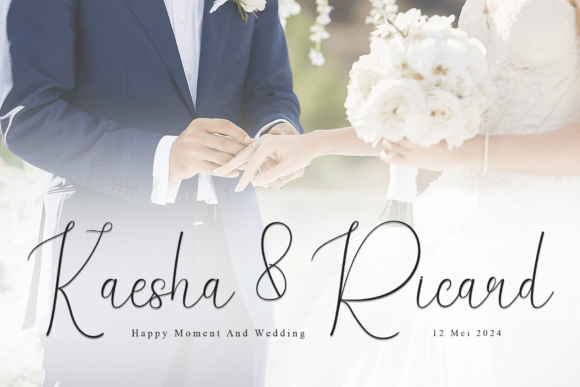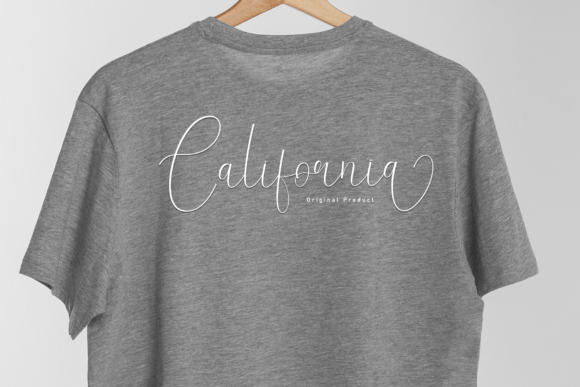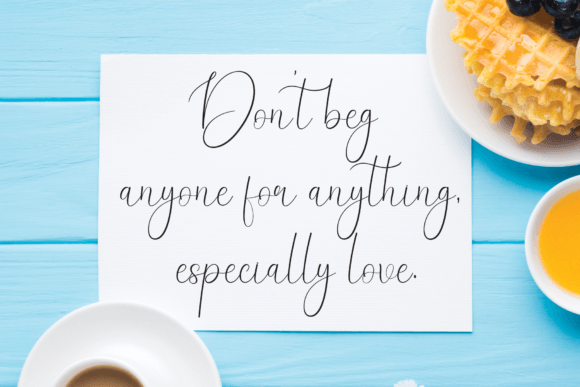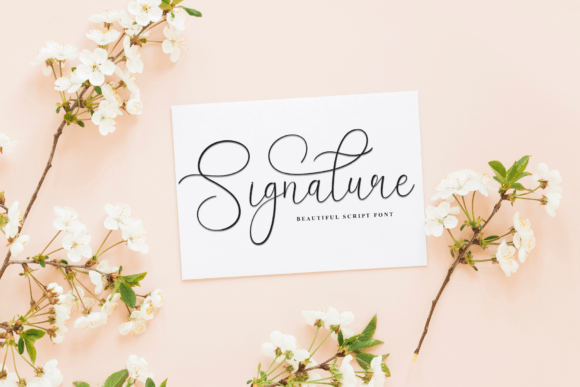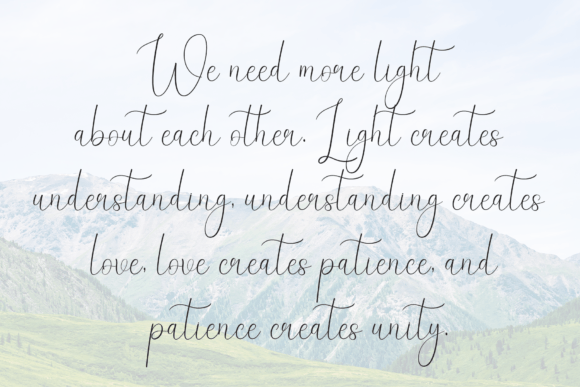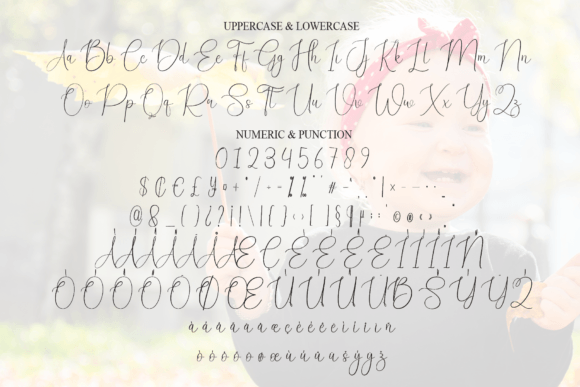
Baby Canada Font: A Charming Handwritten Typeface for Heartfelt Designs
In the world of typography, few fonts capture the essence of warmth and personality as beautifully as the Baby Canada font. This charming handwritten typeface has gained popularity among designers and crafters for its unique blend of elegance and whimsy, making it an ideal choice for a variety of creative projects. In this article, we’ll explore the features, uses, and benefits of the Baby Canada font, and why it has become a go-to choice for those looking to add a personal touch to their designs.
The Characteristics of Baby Canada Font
Baby Canada is a handwritten font that exudes a sense of warmth and friendliness. Its smooth, flowing strokes and whimsical character make it stand out from more traditional typefaces. The font features:
- Smooth and flowing strokes: The font’s smooth strokes give it a fluid and natural look, making it perfect for creating elegant and sophisticated designs.
- Whimsical character: The font’s whimsical character adds a touch of playfulness and personality to any design, making it ideal for creative projects.
- Elegant and personal touch: The font’s elegant and personal touch makes it perfect for heartfelt invitations, cozy branding, and other designs that require a personal touch.
Uses of Baby Canada Font
The Baby Canada font is incredibly versatile and can be used in a variety of creative projects, including:
- Heartfelt invitations: The font’s elegant and personal touch makes it perfect for wedding invitations, baby shower invitations, and other special occasion invites.
- Cozy branding: The font’s warm and whimsical character makes it ideal for branding projects that require a personal touch, such as bakery logos, boutique branding, and handmade product labels.
- Creative projects: The font’s unique character makes it perfect for creative projects, such as scrapbooking, card making, and other paper crafts.
Benefits of Using Baby Canada Font
The Baby Canada font offers several benefits to designers and crafters, including:
- Unique and distinctive look: The font’s unique character makes it stand out from more traditional typefaces, giving designs a distinctive look.
- Easy to read: Despite its whimsical character, the font is easy to read, making it perfect for body text and other applications where legibility is important.
- Versatile: The font’s versatility makes it suitable for a wide range of creative projects, from invitations to branding and paper crafts.
Tips for Using Baby Canada Font
To get the most out of the Baby Canada font, here are a few tips to keep in mind:
- Use it sparingly: While the font is beautiful, it can be overwhelming if used excessively. Use it sparingly to add a touch of elegance and personality to your designs.
- Pair it with complementary fonts: Pair the Baby Canada font with complementary fonts to create a visually appealing design.
- Experiment with different colors and textures: Experiment with different colors and textures to add depth and interest to your designs.
The Baby Canada font is a charming handwritten typeface that combines elegance with a personal touch. Its smooth, flowing strokes and whimsical character make it ideal for heartfelt invitations, cozy branding, and creative projects. With its unique and distinctive look, ease of use, and versatility, it’s no wonder that the Baby Canada font has become a go-to choice for designers and crafters. Whether you’re looking to add a touch of elegance and personality to your designs or simply want to try something new, the Baby Canada font is definitely worth considering.